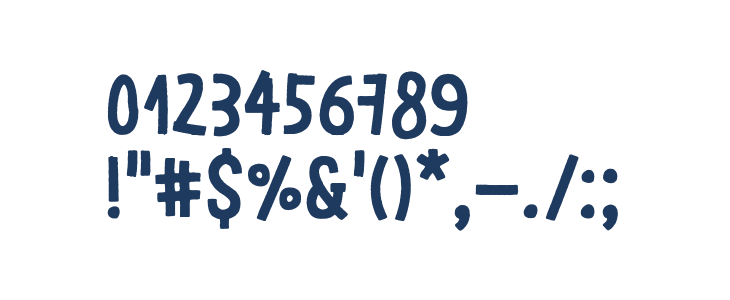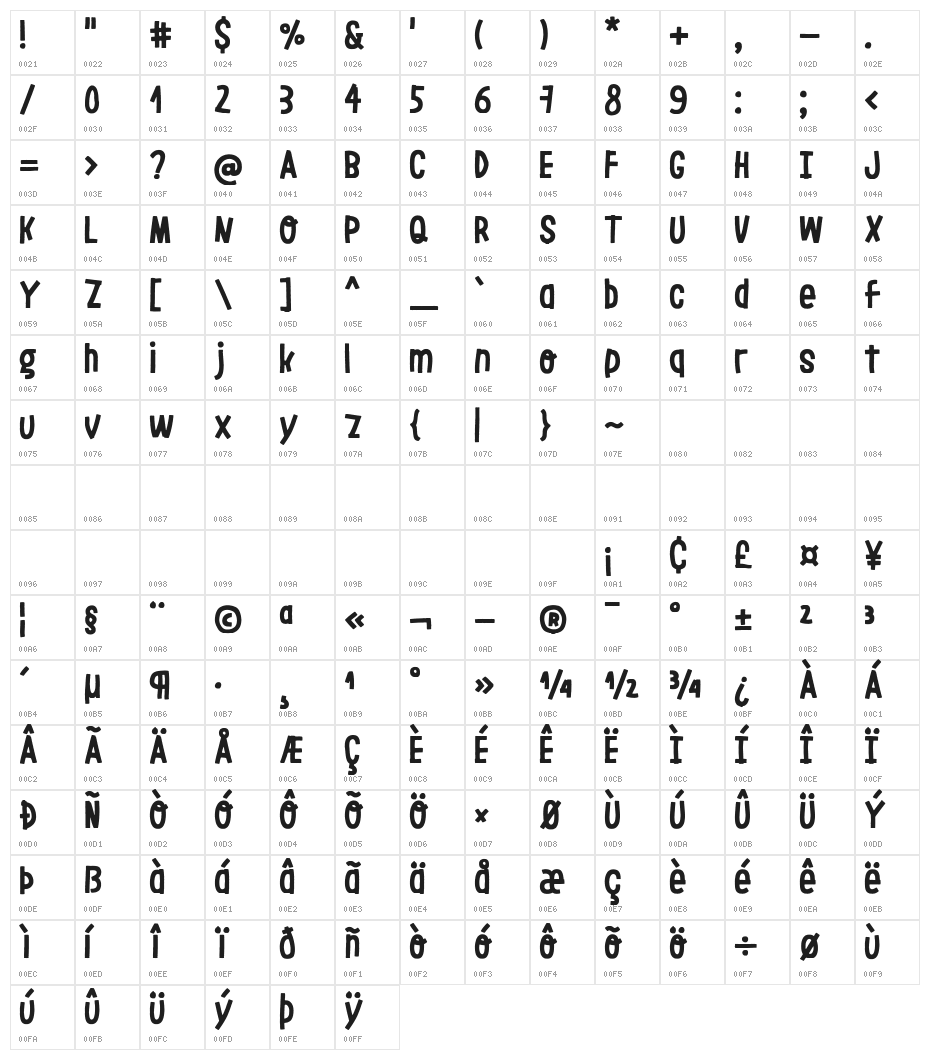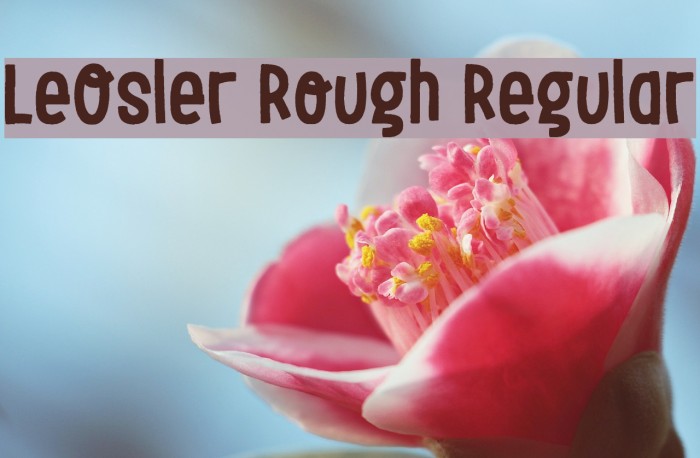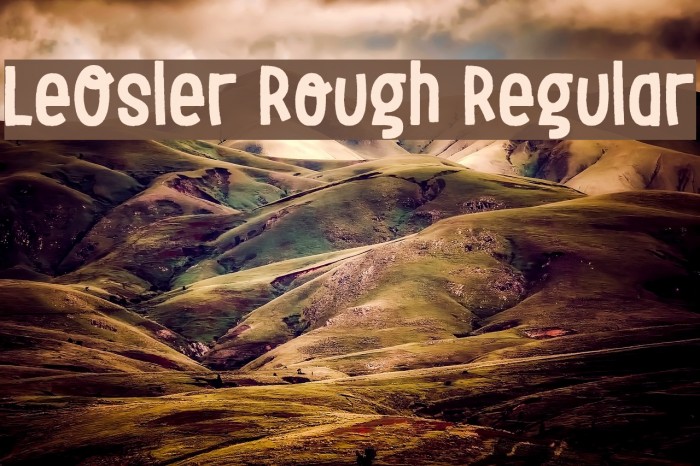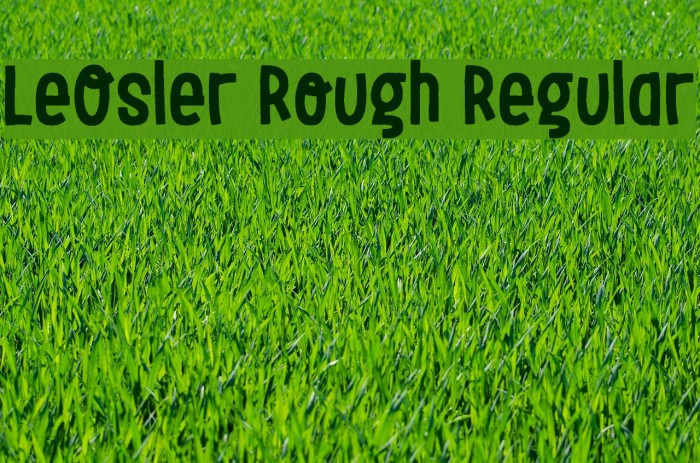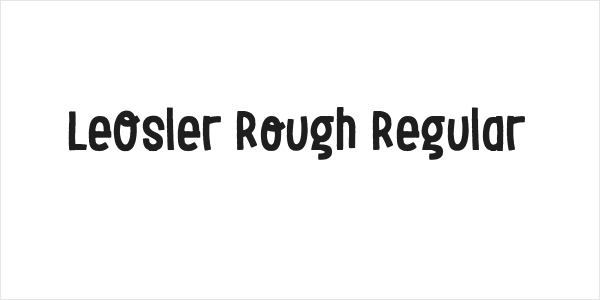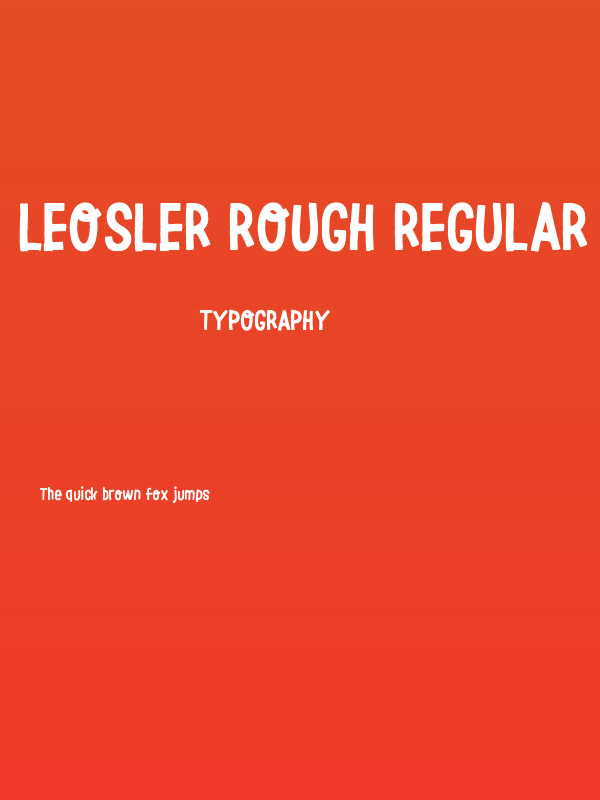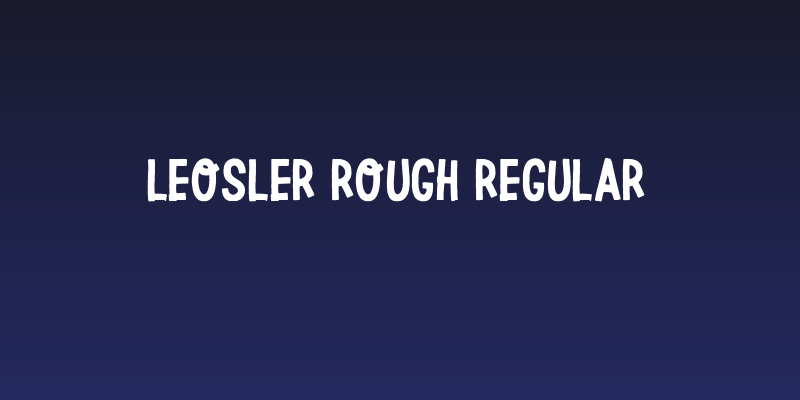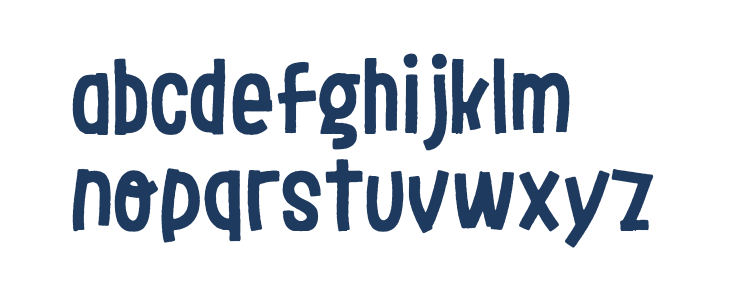
LeOsler Rough Regular Font
LeOsler Rough Regular Description
This font exhibits a playful and rough aesthetic, characterized by its hand-drawn appearance. The letters are bold and slightly irregular, giving a casual and artistic feel. The uppercase and lowercase letters maintain a consistent style, with rounded edges and varying stroke widths that contribute to its informal charm. The numerals and special characters follow the same design principles, ensuring a cohesive look across all glyphs. This font is ideal for projects that require a touch of creativity and personality, such as posters, invitations, or branding for artistic ventures.